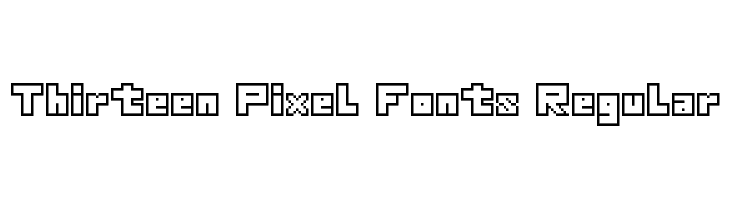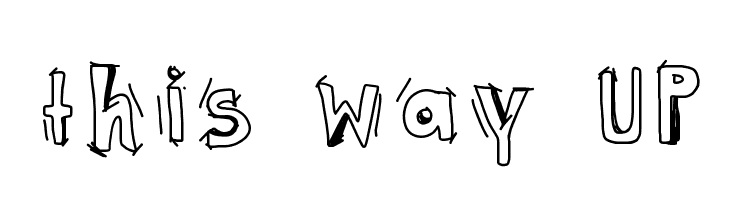
A bold, expressive script font with dynamic flow and interconnected letters.
A bold, vintage-style font with textured, diagonal stripes and geometric shapes.
A playful, hand-drawn font with rounded edges and a casual style.
A bold, rounded sans-serif font with a friendly and approachable style.
A bold, italicized font with smooth, rounded edges and a modern feel.
A modern, italicized font with clean lines and rounded edges.
An elegant, flowing script font with a handwritten style.
A bold, geometric font with sharp angles and a modern aesthetic.
A bold, pixelated font with a retro digital aesthetic.